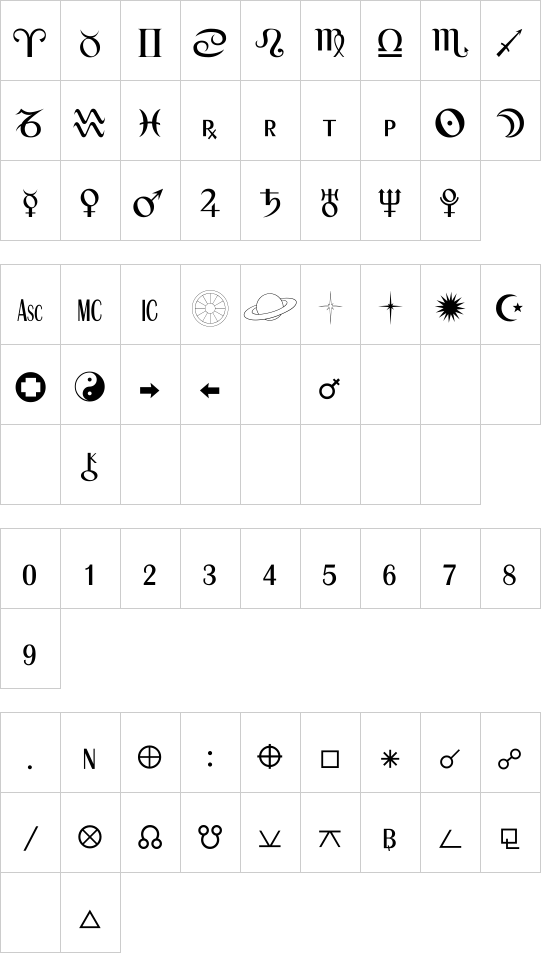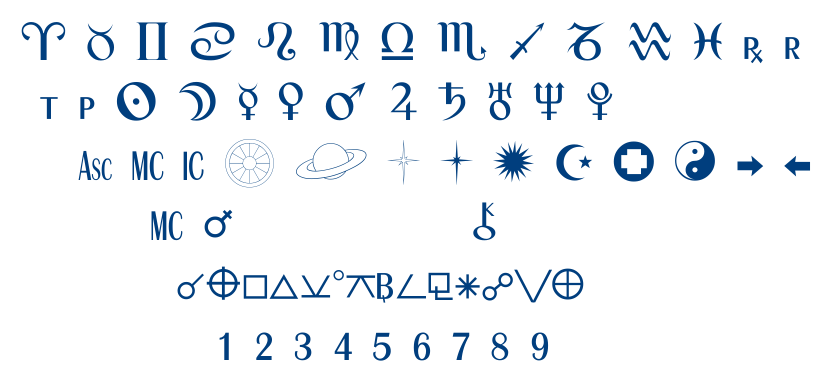
The enclosed ASTRO font has been specifically designed for use with Astrology programs. This font can also be used within published documents, graphics programs, etc. An RTF file is provided to view and print out symbol explanation.